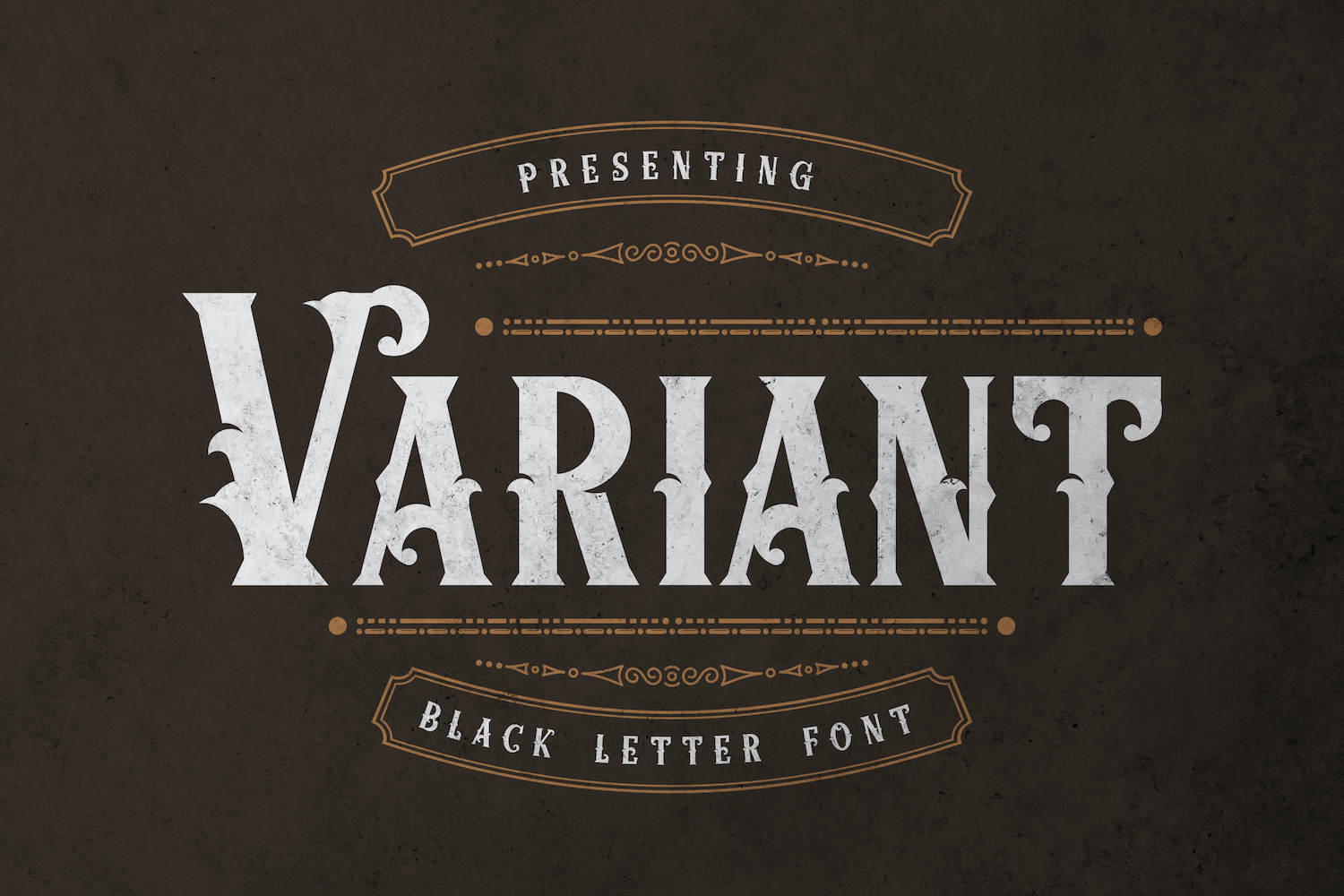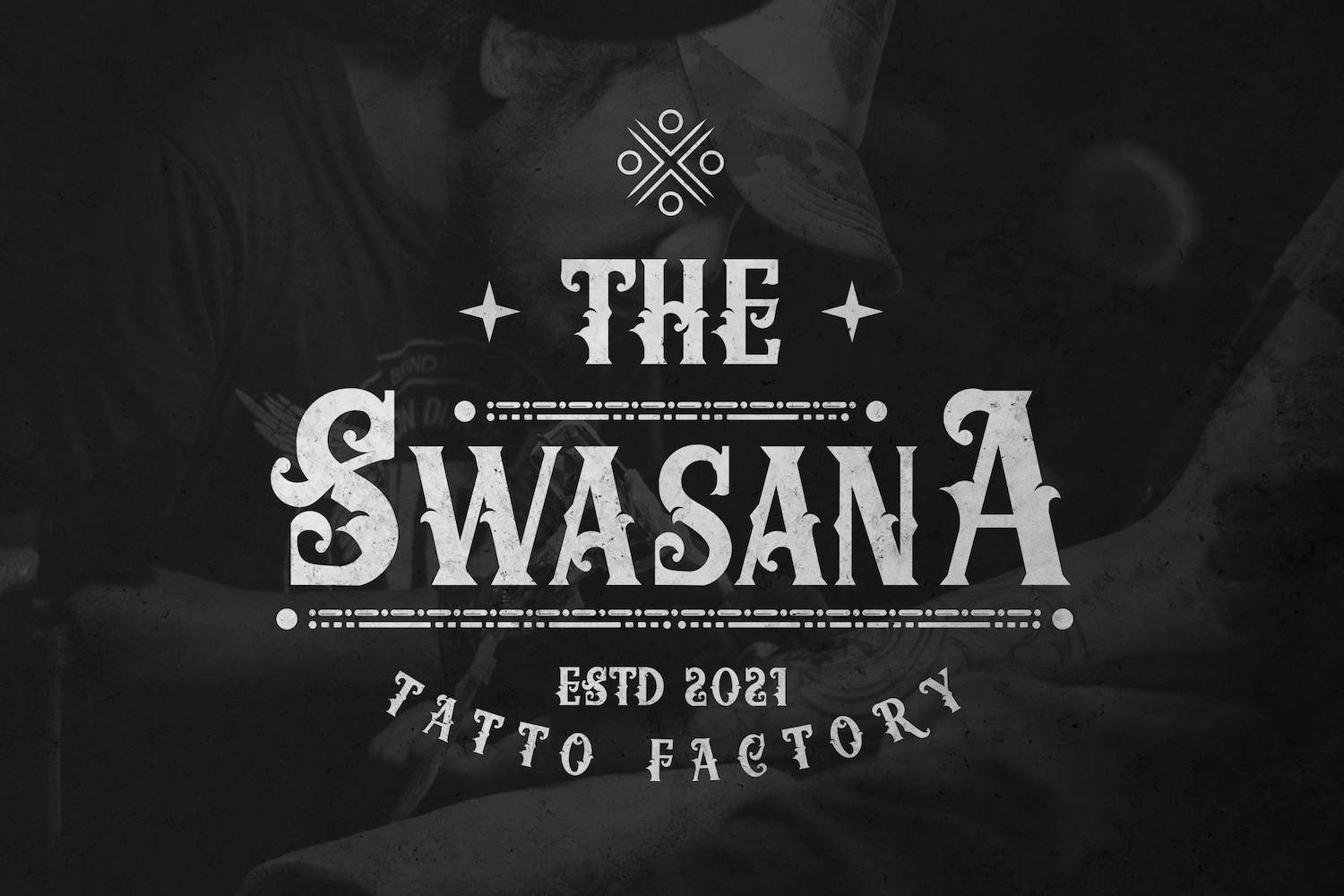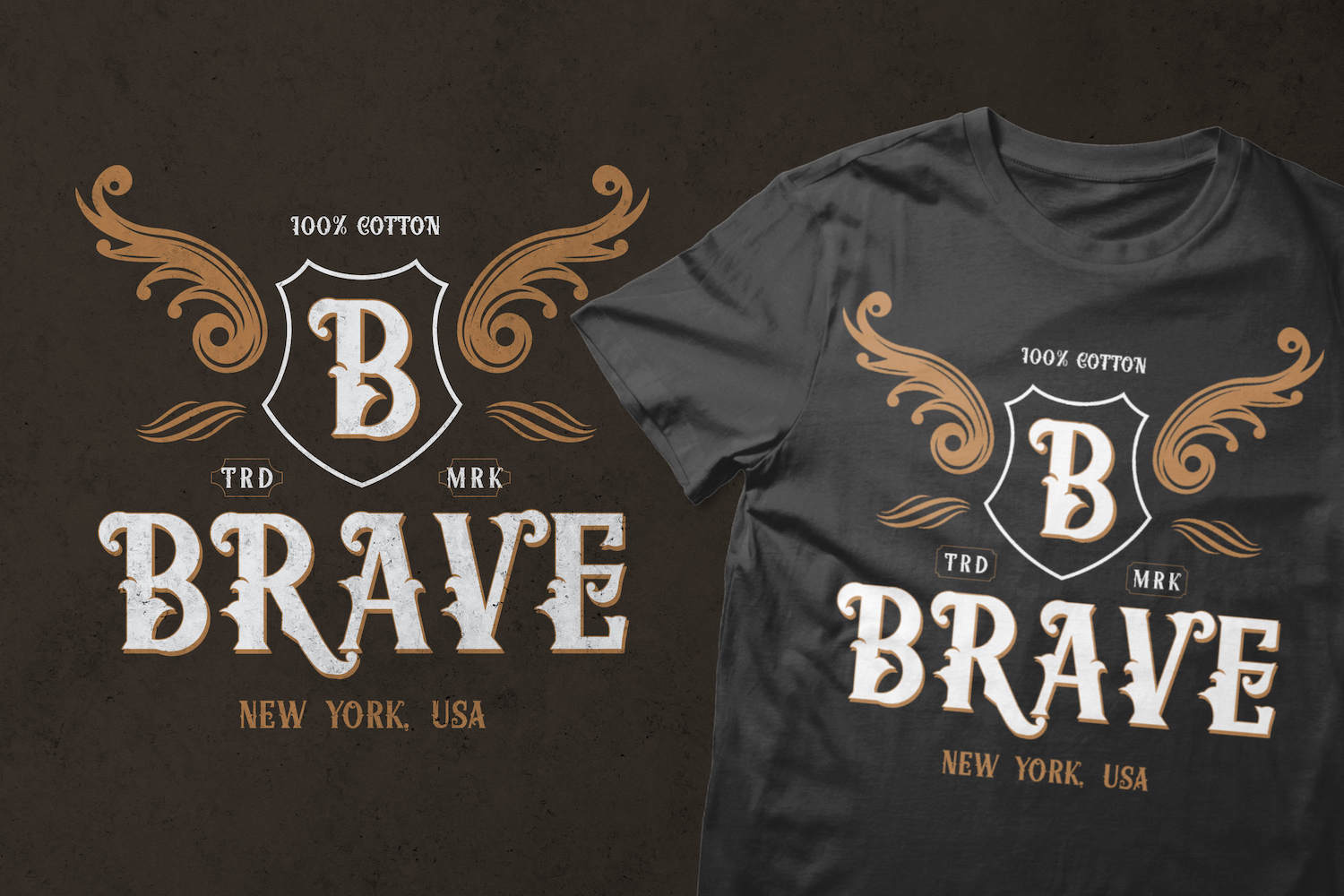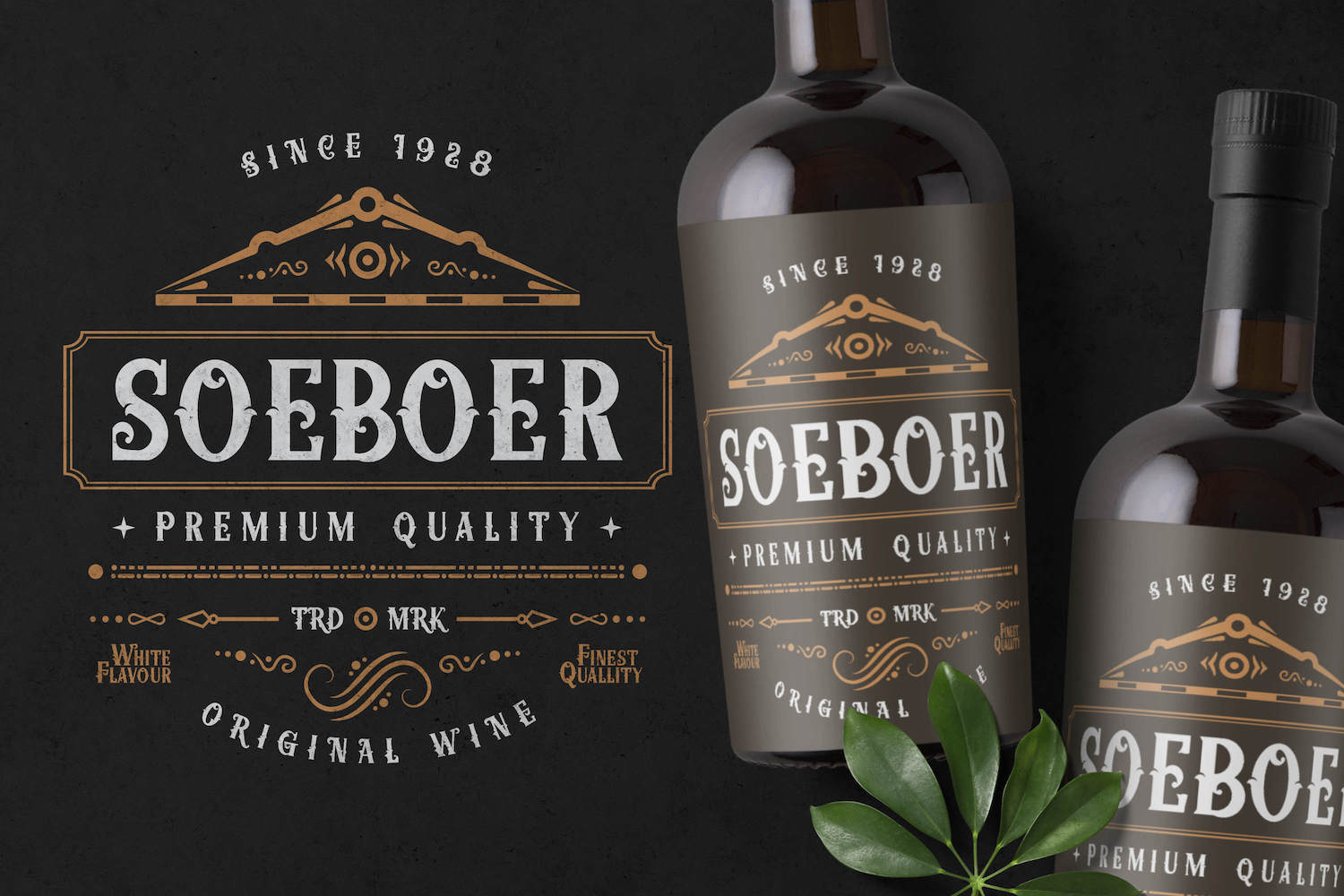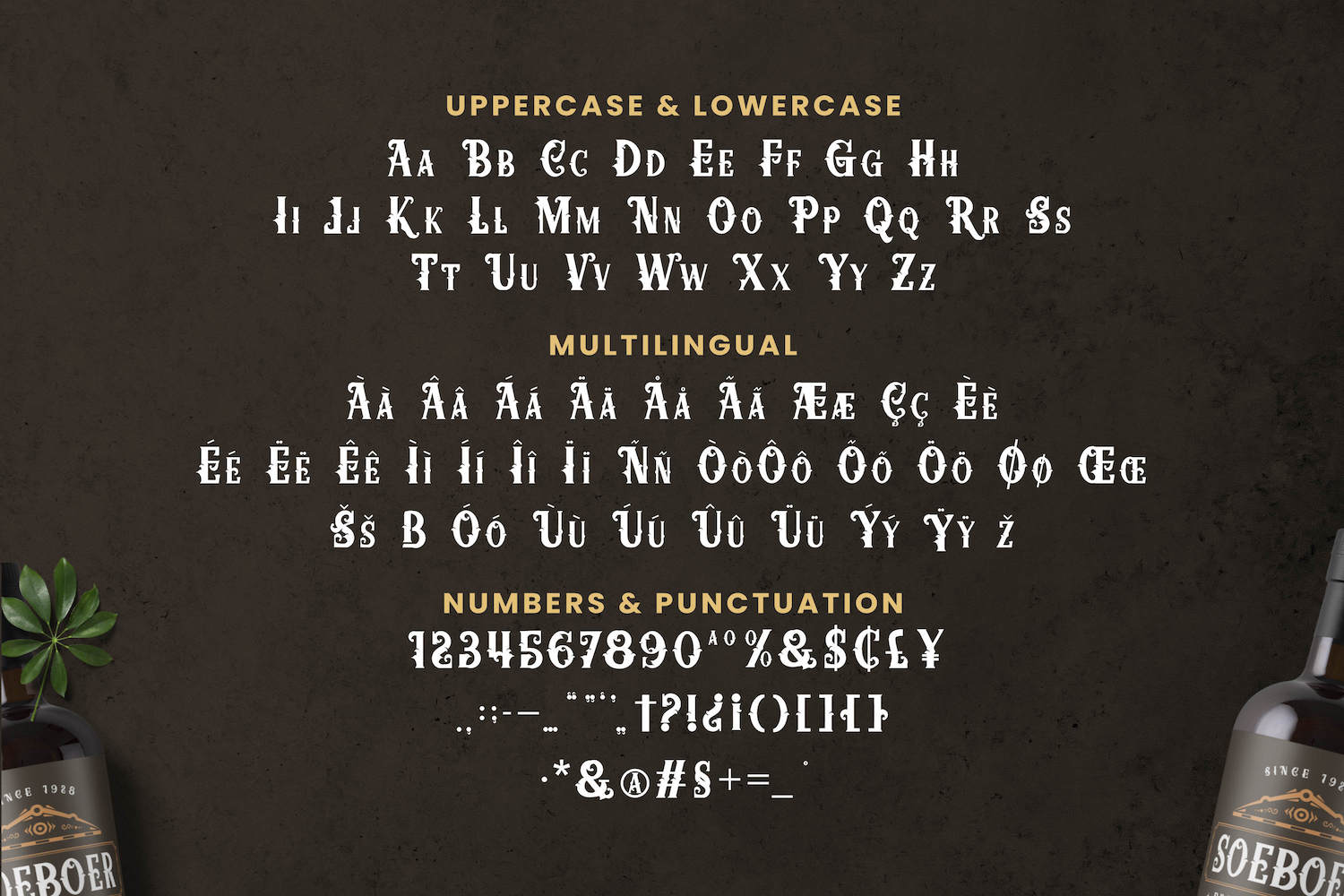
Variant is a striking blackletter-style display font designed with ornate curves and strong vertical strokes. Inspired by vintage signage and old-world typography, this font evokes a sense of craftsmanship and heritage. With a bold presence and sharp personality, Variant is perfect for branding, tattoo studios, liquor labels, apparel designs, and any project needing a strong visual identity with a retro or gothic edge.
It includes uppercase and lowercase characters, multilingual support, punctuation, and numerals, making it both stylish and versatile. The textured letterforms and high-contrast design give it a rugged, timeless quality that commands attention while maintaining elegance.